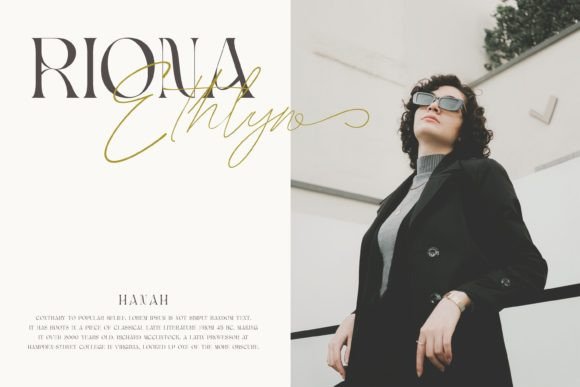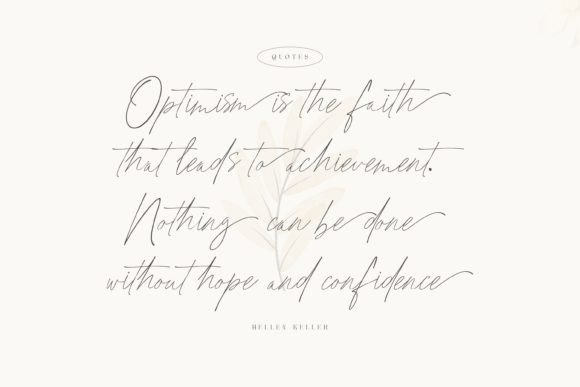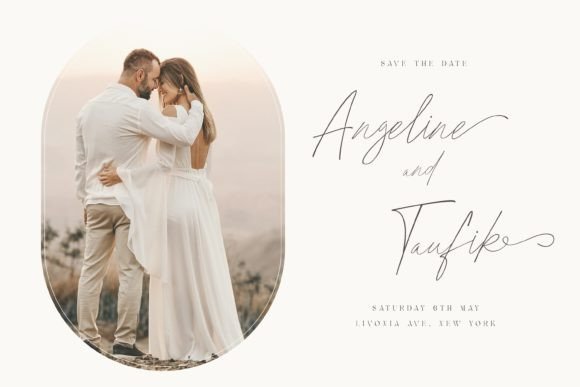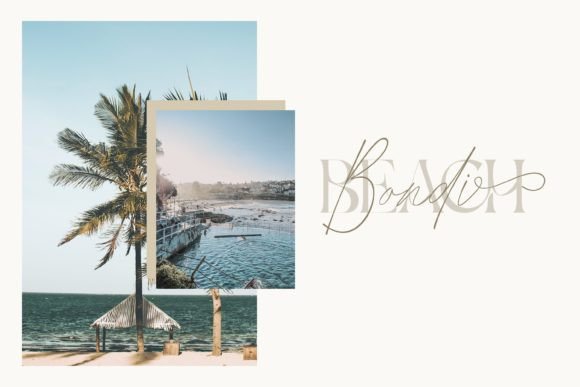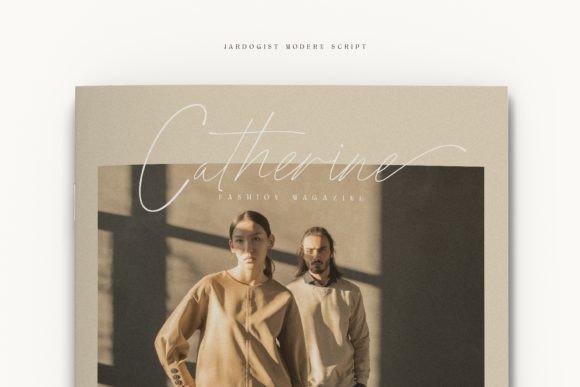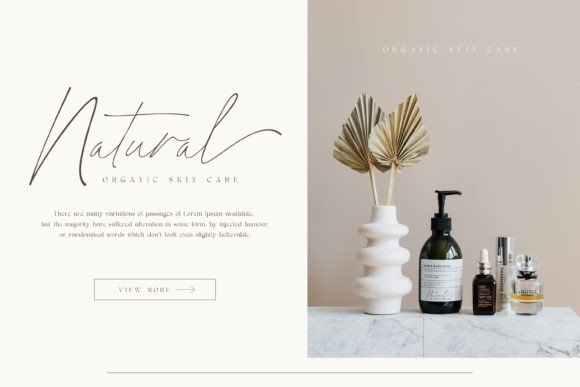
Introduction to Jardogist Font
Jardogist, is a lovely and elegant handwritten font designed for signature logos, wedding invitations, custom branding, websites, social media, and more.
Just in time for Valentineโs Day, itโs perfect for couple names or anything that needs a delicate and romantic touch This font is PUA encoded, which means you can access all of the glyphs and swashes with ease.
Key Features of Jardogist Font
Why Choose Jardogist Font?
Jardogist Font offers exceptional quality and versatility, making it a valuable addition to your design toolkit. Whether you’re creating for personal projects or commercial use, Jardogist Font delivers professional results.